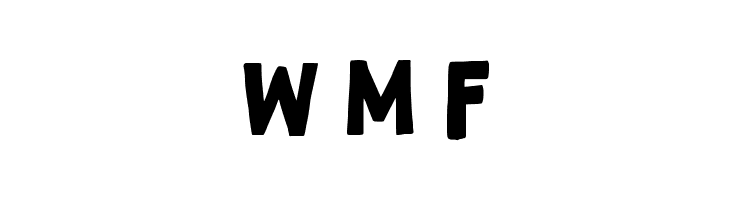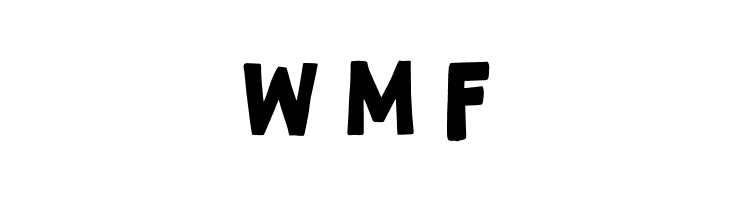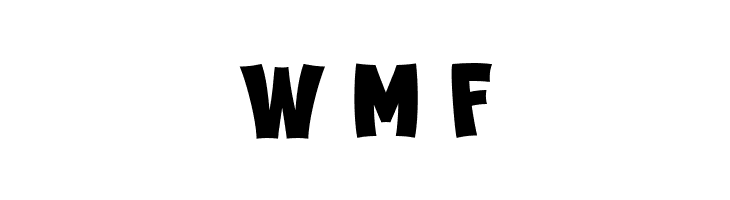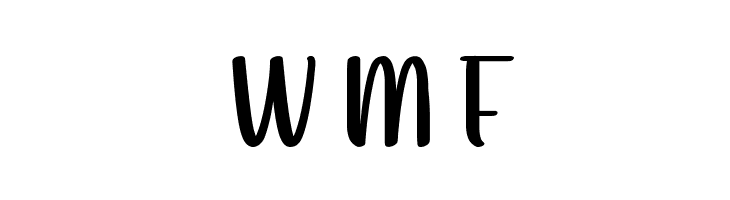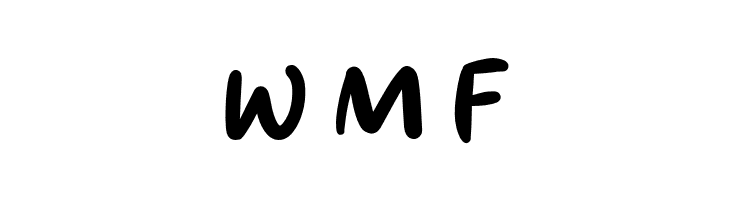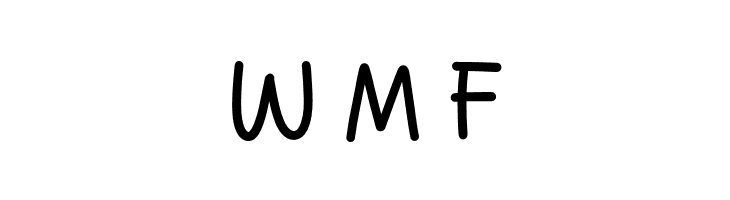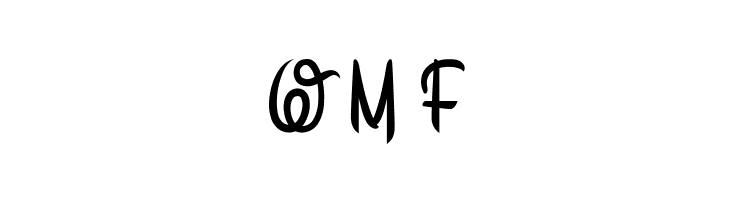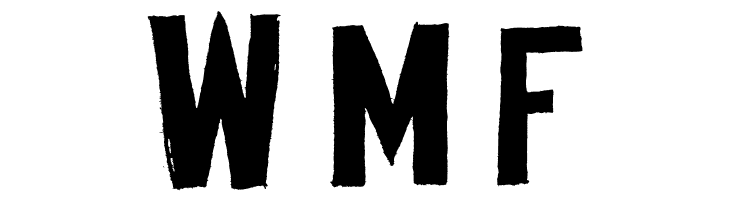
Super Potato Font
A bold, playful font with exaggerated curves and thick strokes.
Cheap Potatoes Font
A bold, hand-painted style font with a raw, expressive look.
Hot Potato Font
A bold, playful font with a hand-drawn, casual style.
Potato Chips Font
A playful, hand-drawn font with bold, textured strokes and a casual vibe.
BABY POTATO Font
A playful, hand-drawn font with a whimsical and friendly style.
Potato Lite Font
A bold, hand-drawn font with a rustic and organic feel.
PotatoesAndPeasRegular Font
A playful, handwritten font with tall, narrow letters and a whimsical touch.
Hot Potato Font
A playful, bold, hand-drawn style font with rounded, thick letters.
Potato sans Bold Font
A bold, playful font with thick, rounded, and slightly irregular characters.
Potato sans Black Font
A bold, playful font with thick, whimsical characters ideal for fun projects.
Potato Press Font
A bold, distressed font with a grunge, handmade appearance.
Happy Potatoes Font
A playful, potato-themed decorative font with a whimsical, hand-drawn style.
Potato Soup Demo Font
A playful, bold script font with smooth, flowing lines and a friendly appearance.
Cheap Potatoes Black Thin Font
A bold, distressed font with a hand-drawn, vintage aesthetic.
Potato Farmer Font
Olaf Regular Font
A bold, playful handwritten font with rounded edges and a whimsical style.
Cheap Potatoes Black Font
A bold, hand-painted style font with a dynamic and textured appearance.
Potato Chips Font
A bold, playful, hand-drawn font with irregular strokes and a dynamic feel.
we are potatoes Font
A bold, distressed font with a hand-painted, organic style.
Potato Chips Font